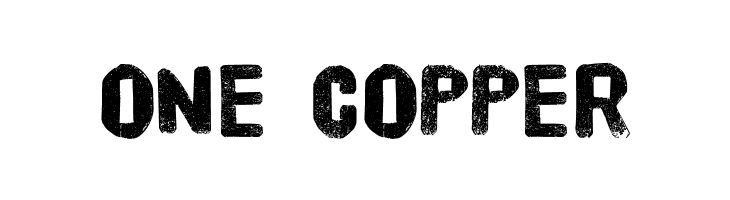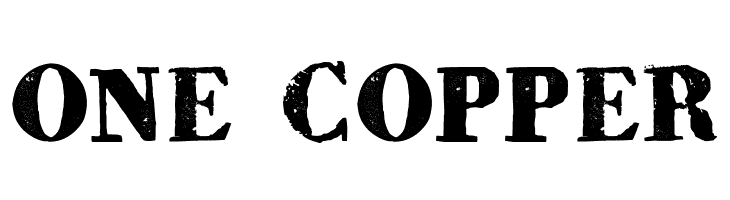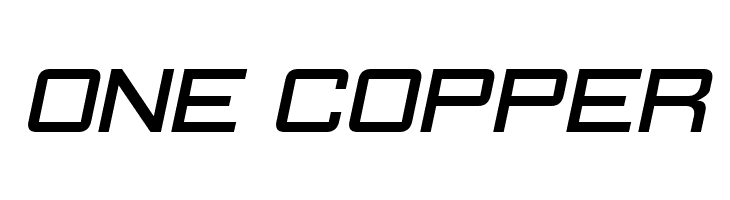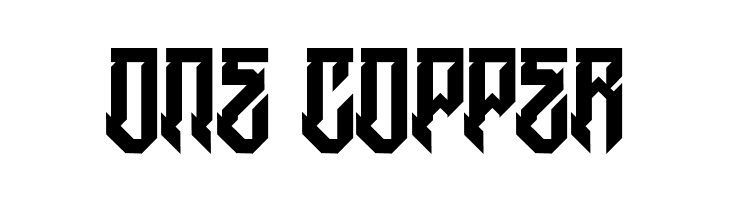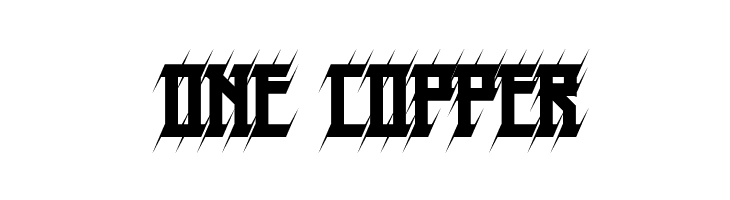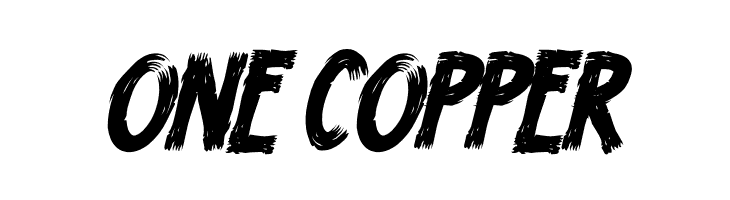
A bold, angular blackletter-inspired font with a dramatic and authoritative style.
A bold, decorative font with gothic influences and intricate details.
A bold, three-dimensional font with strong shadow effects and geometric design.
A playful, handwritten font with dynamic strokes and a whimsical style.
An engraved, textured font with a vintage and classic appeal.
A playful, decorative font with bold, rounded edges and a whimsical, hand-drawn style.
A whimsical and eclectic collection of bold, imaginative pictorial symbols.
A whimsical, vintage-style font with elegant curves and subtle serifs.
A whimsical and playful font with elegant flourishes and clear readability.
A bold, distressed font with a vintage, textured appearance.
A bold, distressed font with a vintage, rugged appearance.
A bold, distressed font with a vintage, textured style.
A bold, distressed font with a vintage, textured appearance.
A bold, impactful font with rounded edges and strong character presence.
A playful, hand-drawn font with bold, irregular strokes and a casual style.
A bold, angular font with a gothic and modern aesthetic.
A bold, brush-textured font with high contrast and dynamic style.
A bold, italic brushstroke font with a dynamic and textured appearance.
A bold, brush-stroke font with a dynamic and textured appearance.
A geometric, angular font with a futuristic and bold design.
A bold, italicized font with sharp, angular edges and a futuristic style.
A sharp, angular italic font with a futuristic and dynamic style.
A modern, geometric font with sharp edges and consistent spacing.
A bold, geometric font with sharp, angular edges and a modern aesthetic.
A bold, italicized font with sharp, angular edges and a modern aesthetic.
A sharp, italicized font with a futuristic and dynamic style.